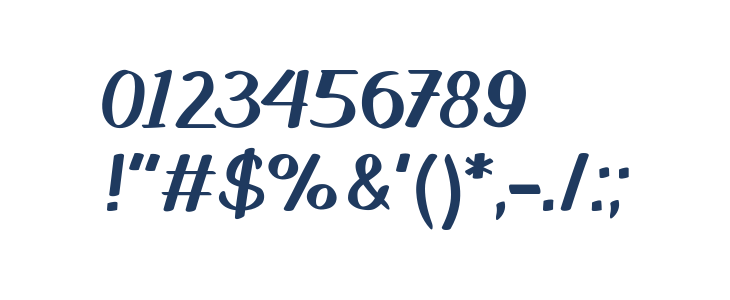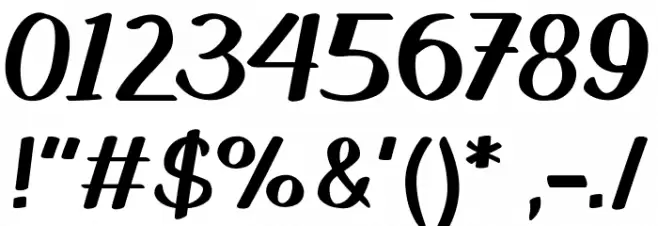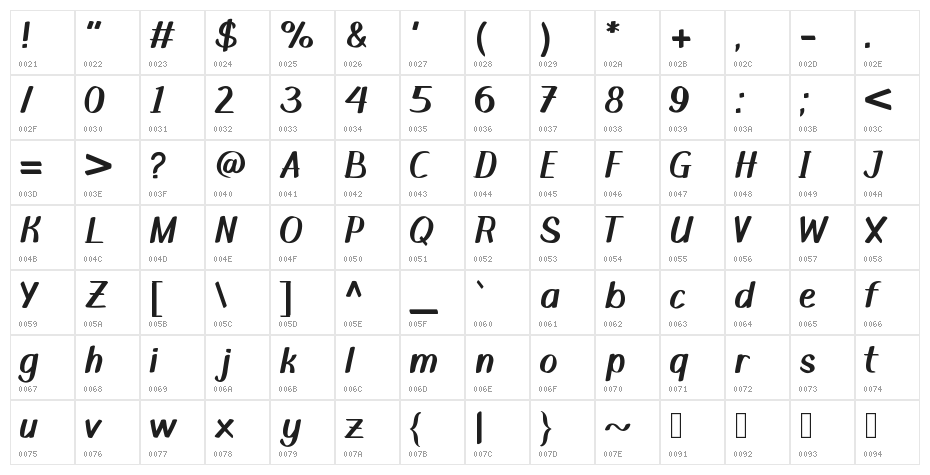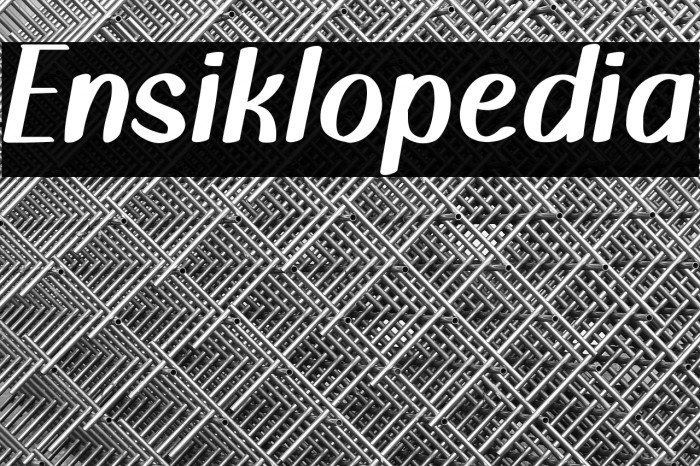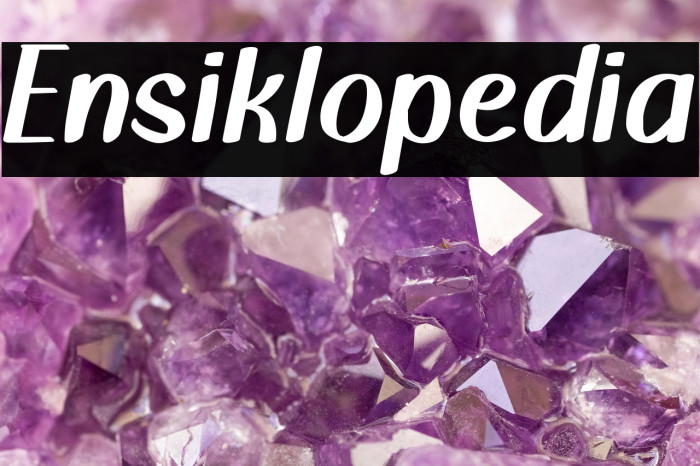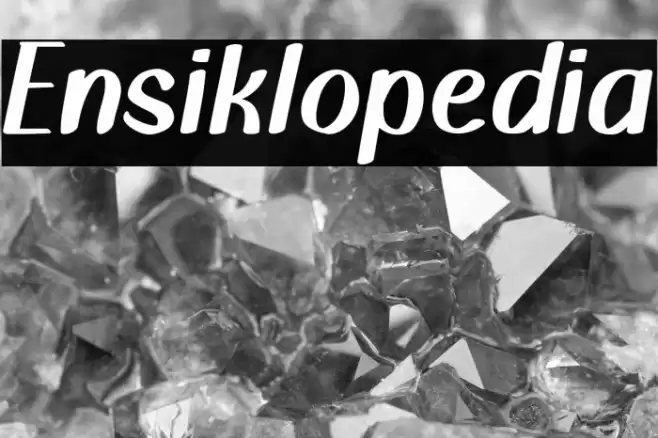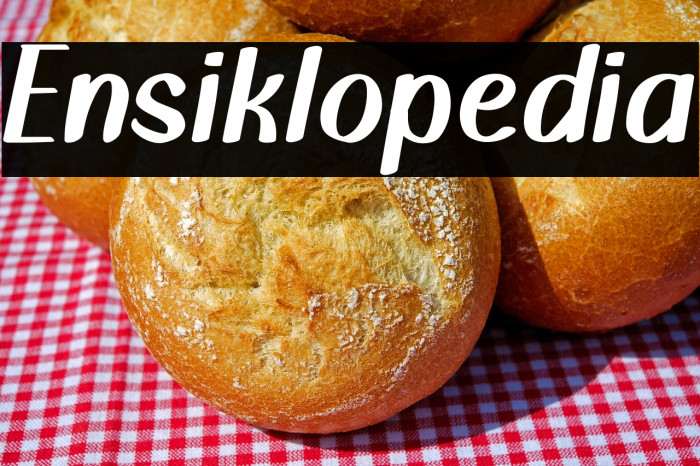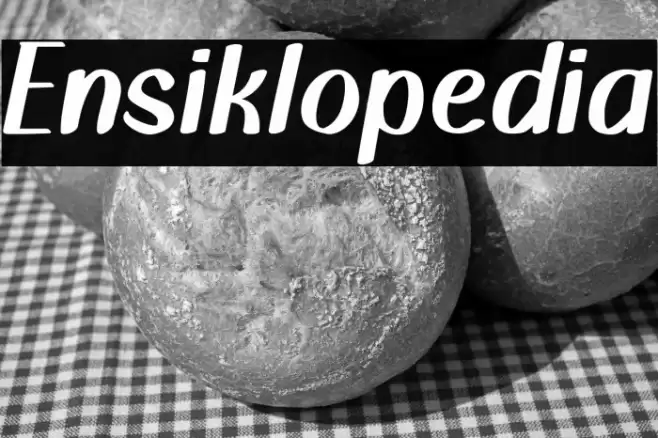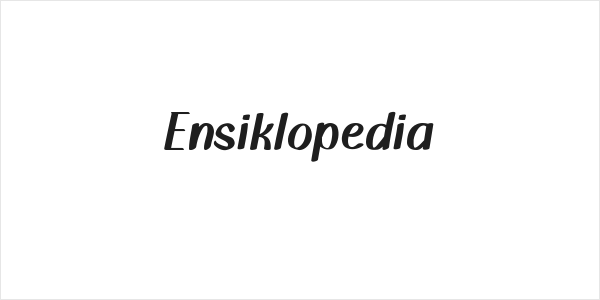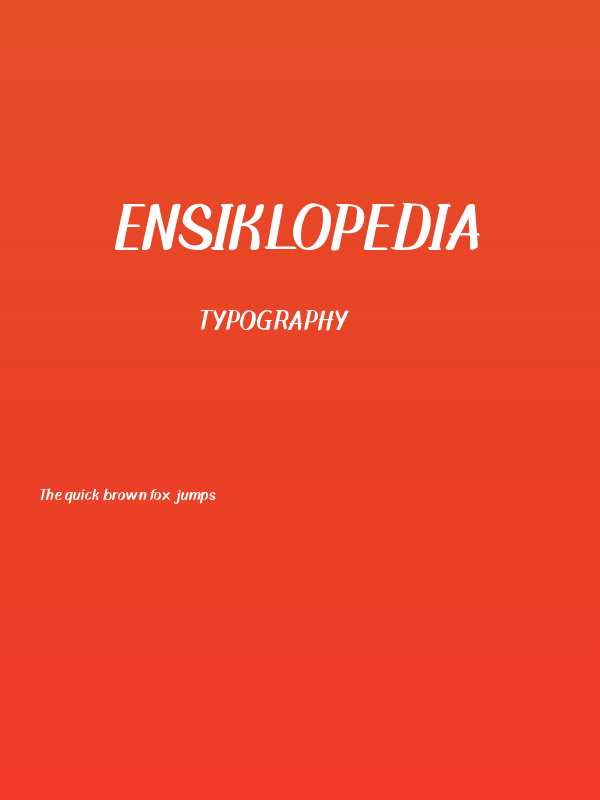
Ensiklopedia Font
Ensiklopedia Description
This font features a dynamic and flowing script style, characterized by its elegant curves and slightly slanted letters. The uppercase letters are bold and prominent, with a slight italic slant that adds a sense of movement and sophistication. The lowercase letters maintain a consistent style, with smooth transitions and rounded edges that enhance readability. The numerals are clear and distinct, matching the overall aesthetic of the font. Special characters are well-integrated, maintaining the font's cohesive look. This font exudes a modern yet classic feel, making it versatile for various design applications.
Overall StyleModern Classic
Use CaseLogos, Invitations, Greeting Cards
Proposed ProjectsIdeal for branding, invitations, greeting cards, and elegant packaging designs.